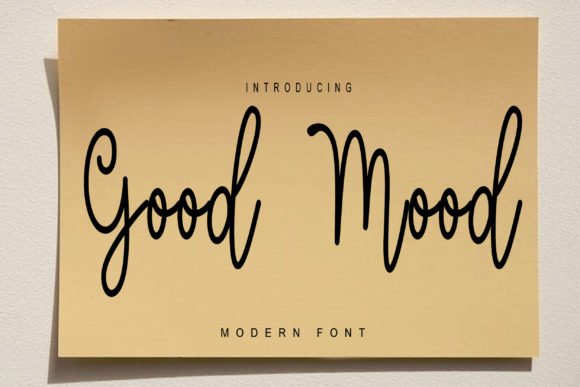
Discover the Secret to a Beautiful Design
Have you ever been working on a design project, pouring your heart and soul into it, and suddenly, the perfect font comes to mind? For many designers, that ‘aha’ moment is the key to unlocking a truly stunning visual identity. For me, it was when I stumbled upon the Good Mood Font – a lovely and delicate script font that exudes elegance and class.
Good Mood Font was particularly crafted for those who need a beautiful and refreshing look to their designs. Its unique blend of sophistication and playfulness makes it the perfect choice for any project that requires a touch of whimsy. Whether you’re a seasoned designer or just starting out, Good Mood Font is an invaluable addition to your toolkit.
Good Mood Font Key Features
- Font Family: Good Mood Font is a high-quality, professional font family designed to evoke feelings of happiness and positivity.
- Unique Characteristics: The Good Mood Font features rounded edges, smooth curves, and subtle flair, creating a friendly and approachable atmosphere.
Good Mood Font Review
I recently had the chance to work with the Good Mood Font, and I must say it’s an interesting choice for designers.
- The Good Mood Font has a unique, hand-drawn feel that adds a touch of personality to any design project.
- The font’s friendly and approachable nature makes it perfect for projects that require a more casual tone, such as blogs, social media, or advertisements.
- The font’s versatility allows it to work well in both digital and print formats, making it a great choice for designers who work in multiple mediums.
- The Good Mood Font can be a bit too playful for more formal or professional projects, which may require a more traditional or elegant font.
- The font’s irregularities can make it difficult to read at smaller font sizes, which may be a concern for designers who need to use the font in small print.
- The font’s lack of scalability can make it challenging to use in larger or more complex designs, which may require a more robust font.
Overall, I think the Good Mood Font is a great choice for designers who are looking to add a touch of personality to their projects. While it may have some limitations, its unique feel and versatility make it a great addition to any designer’s toolkit.
Tips for Getting the Most Out of Good Mood Font
Use Good Mood Font for headings and titles to add a touch of elegance and sophistication to your designs.
Combine Good Mood Font with other fonts for a unique and creative look.
Good Mood Font is perfect for:
Branding and marketing materials
Print and digital publications
Any design project that requires a